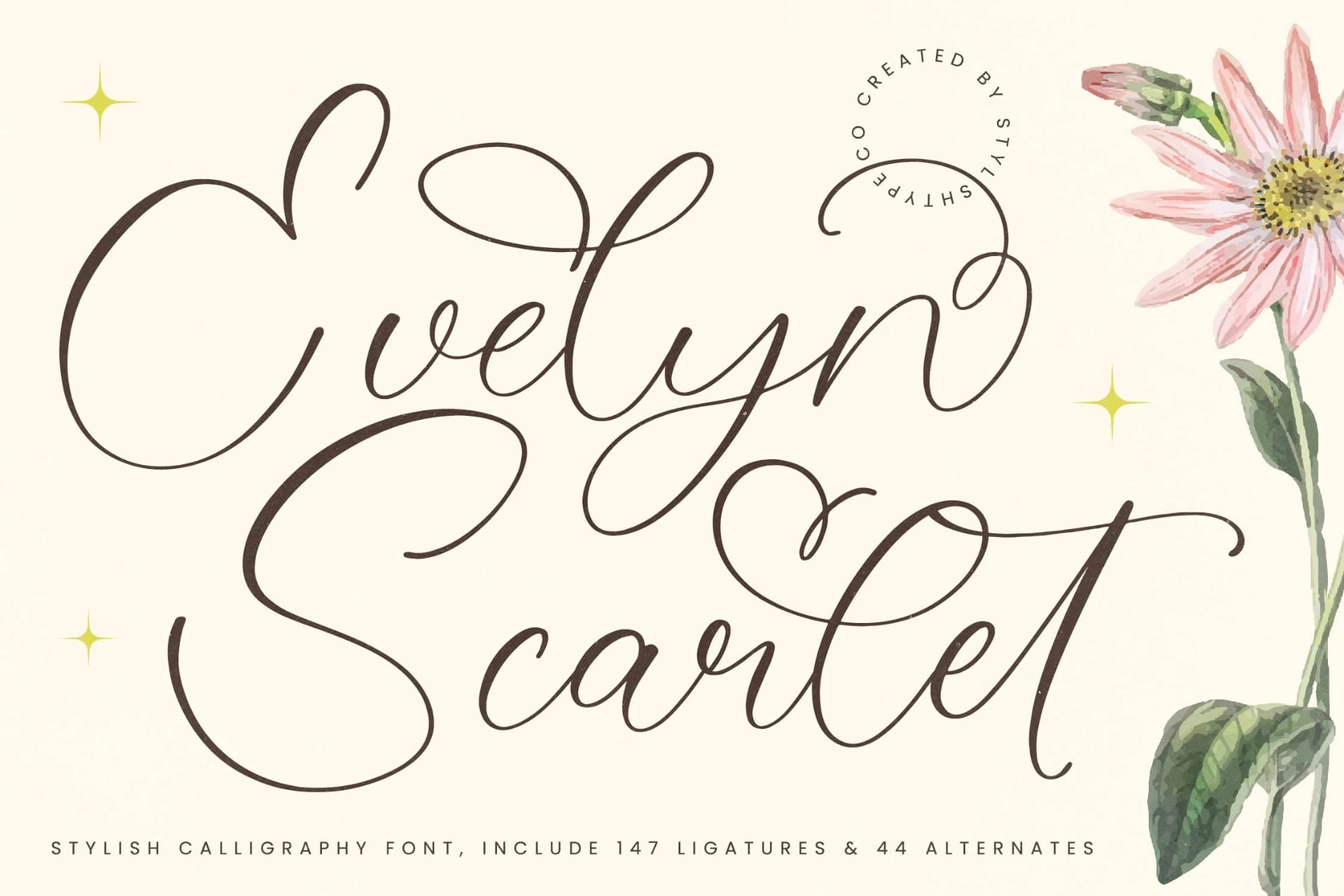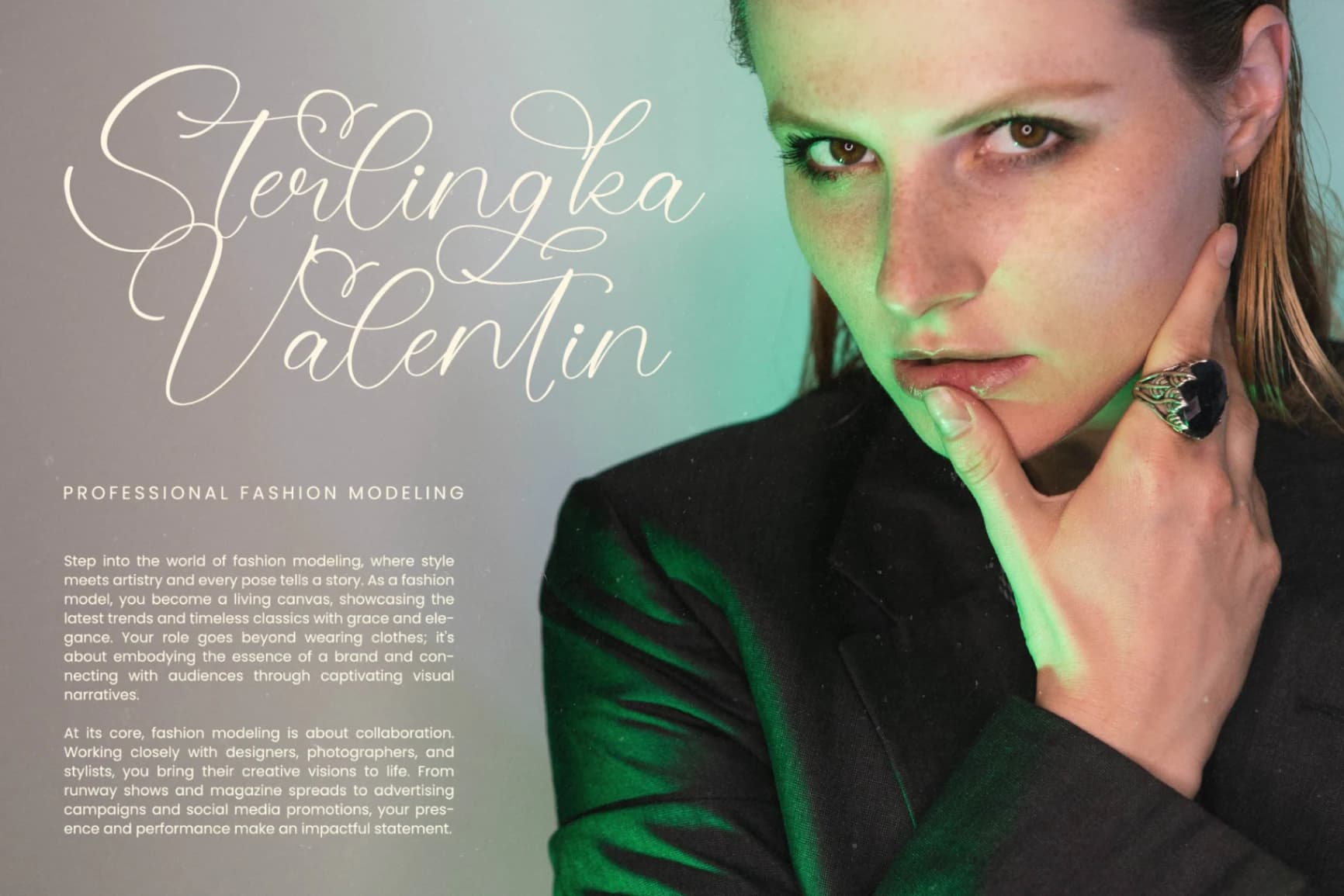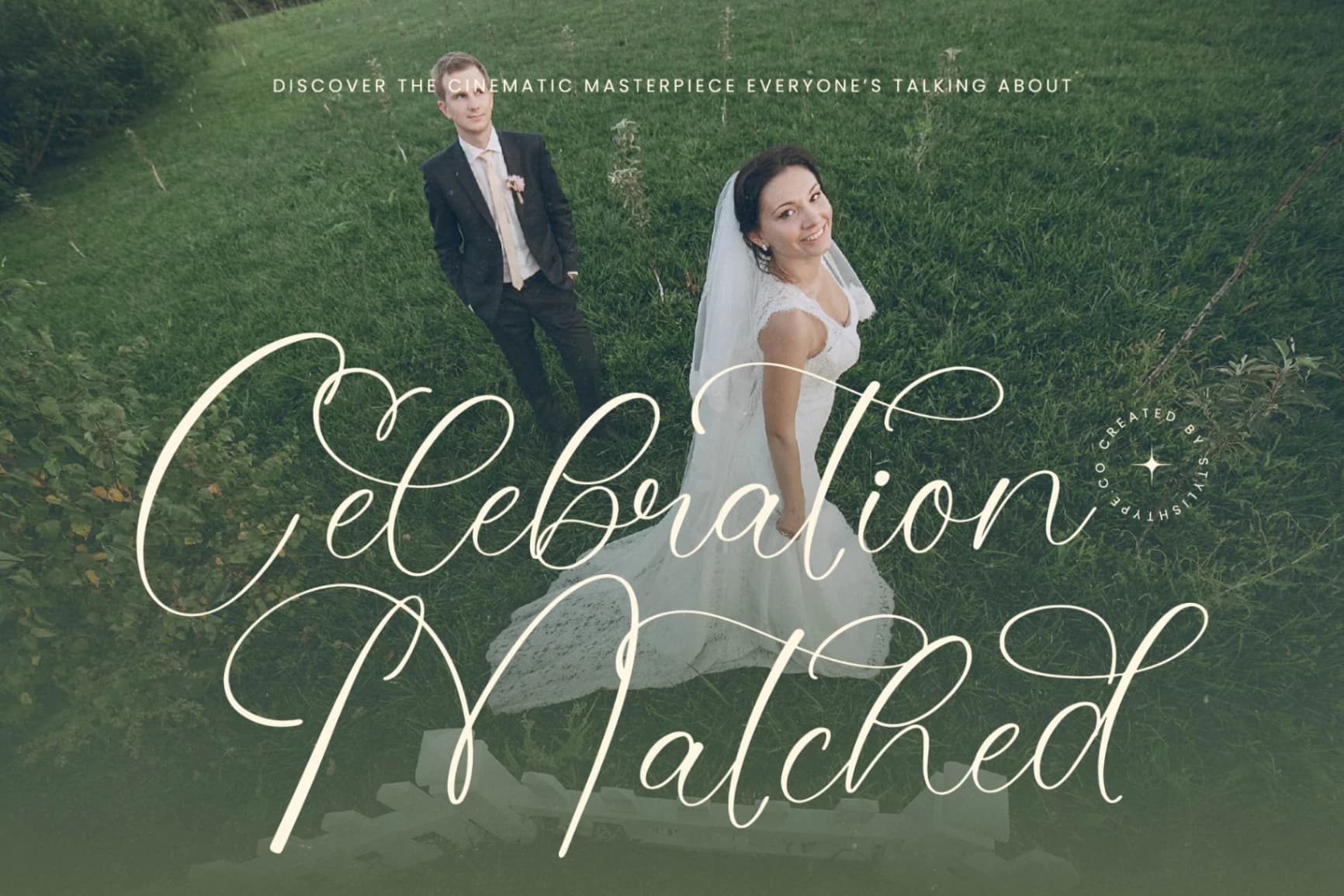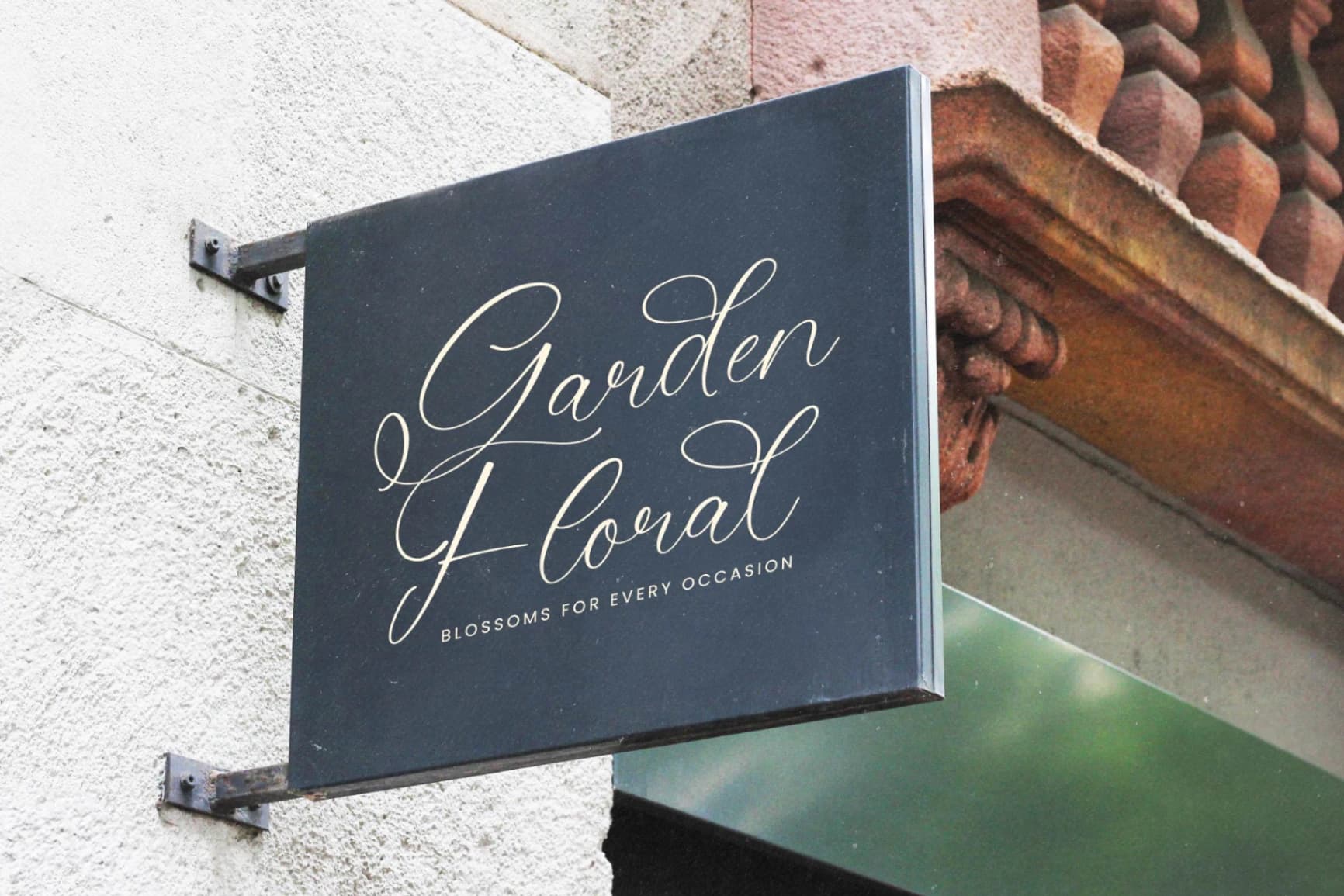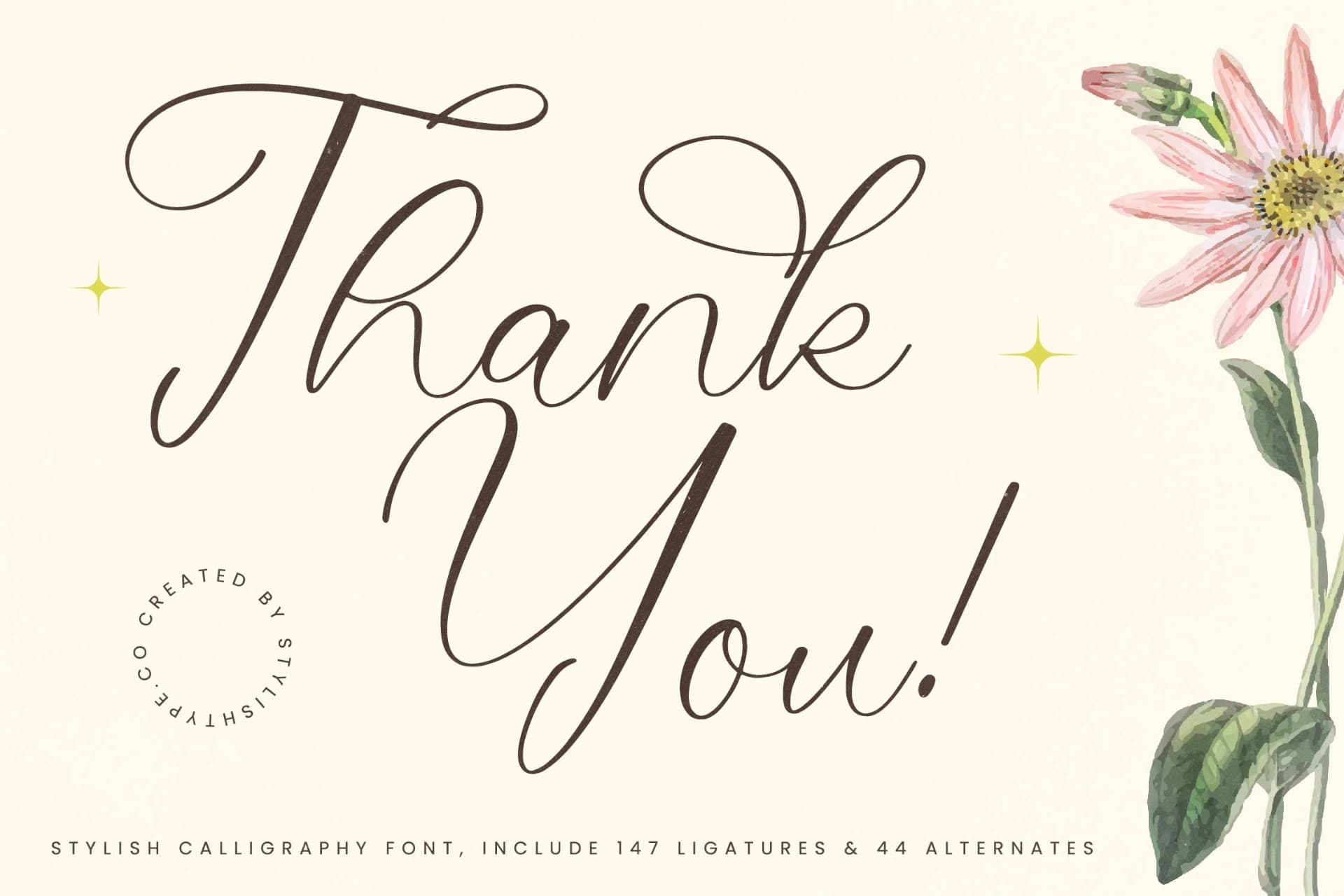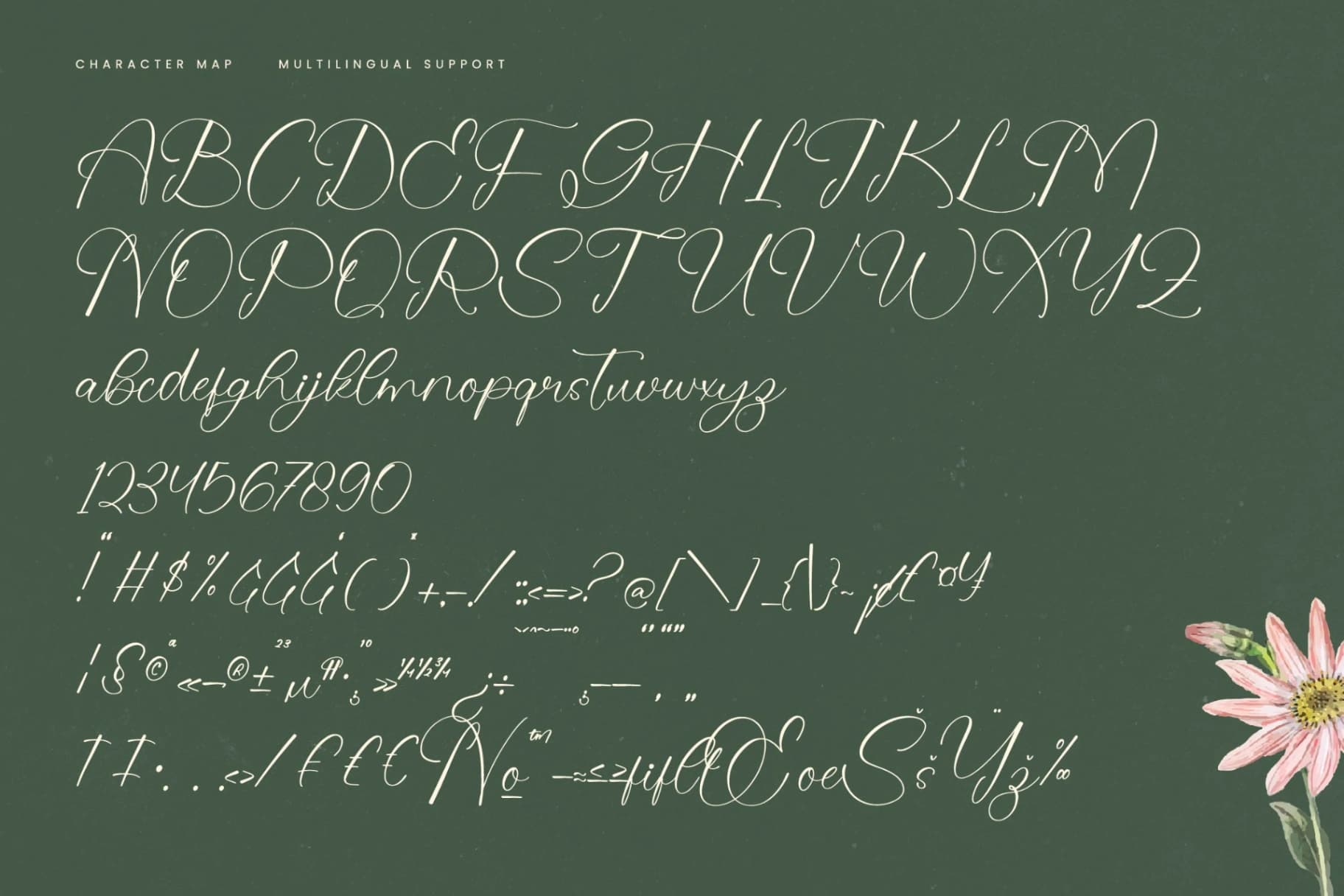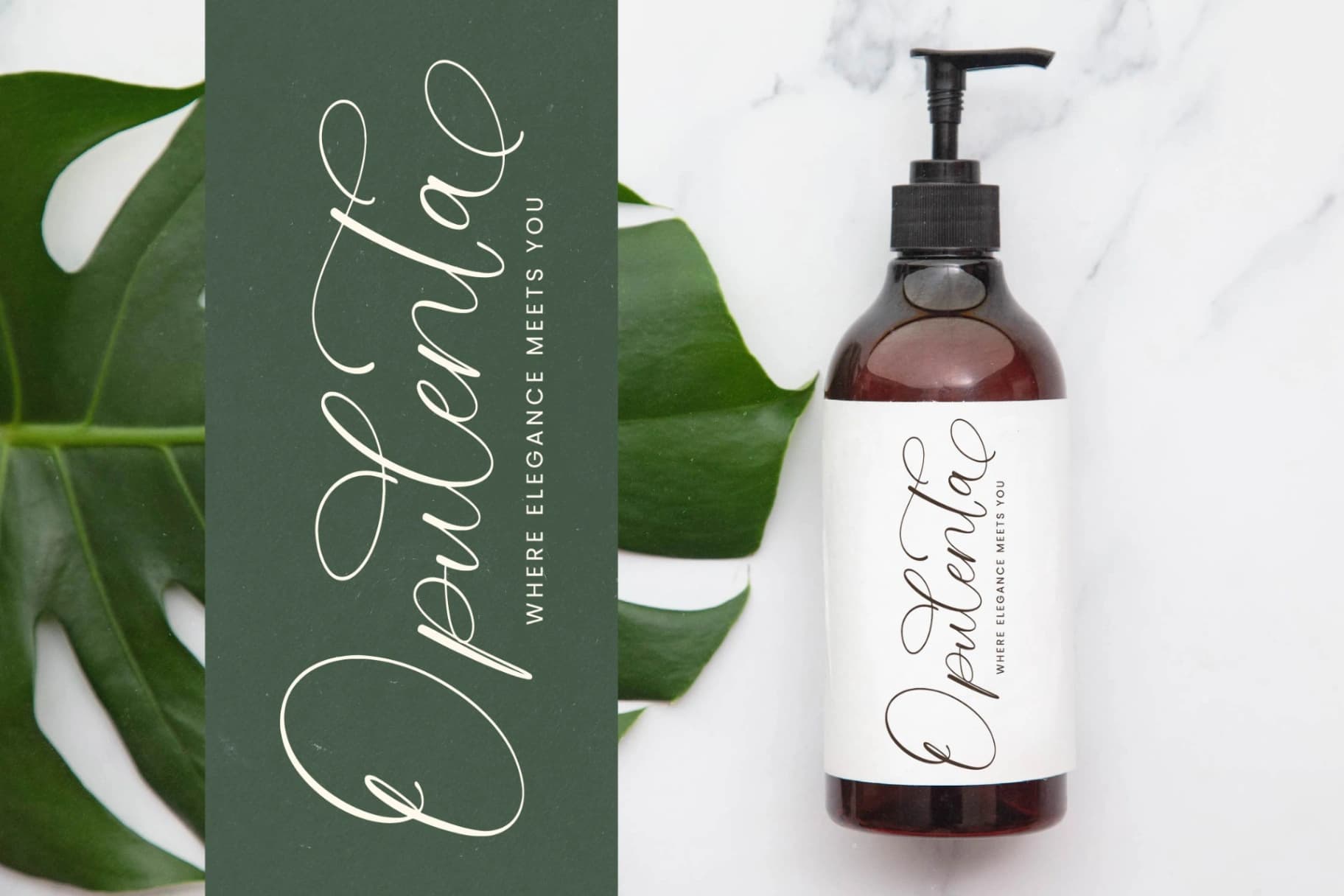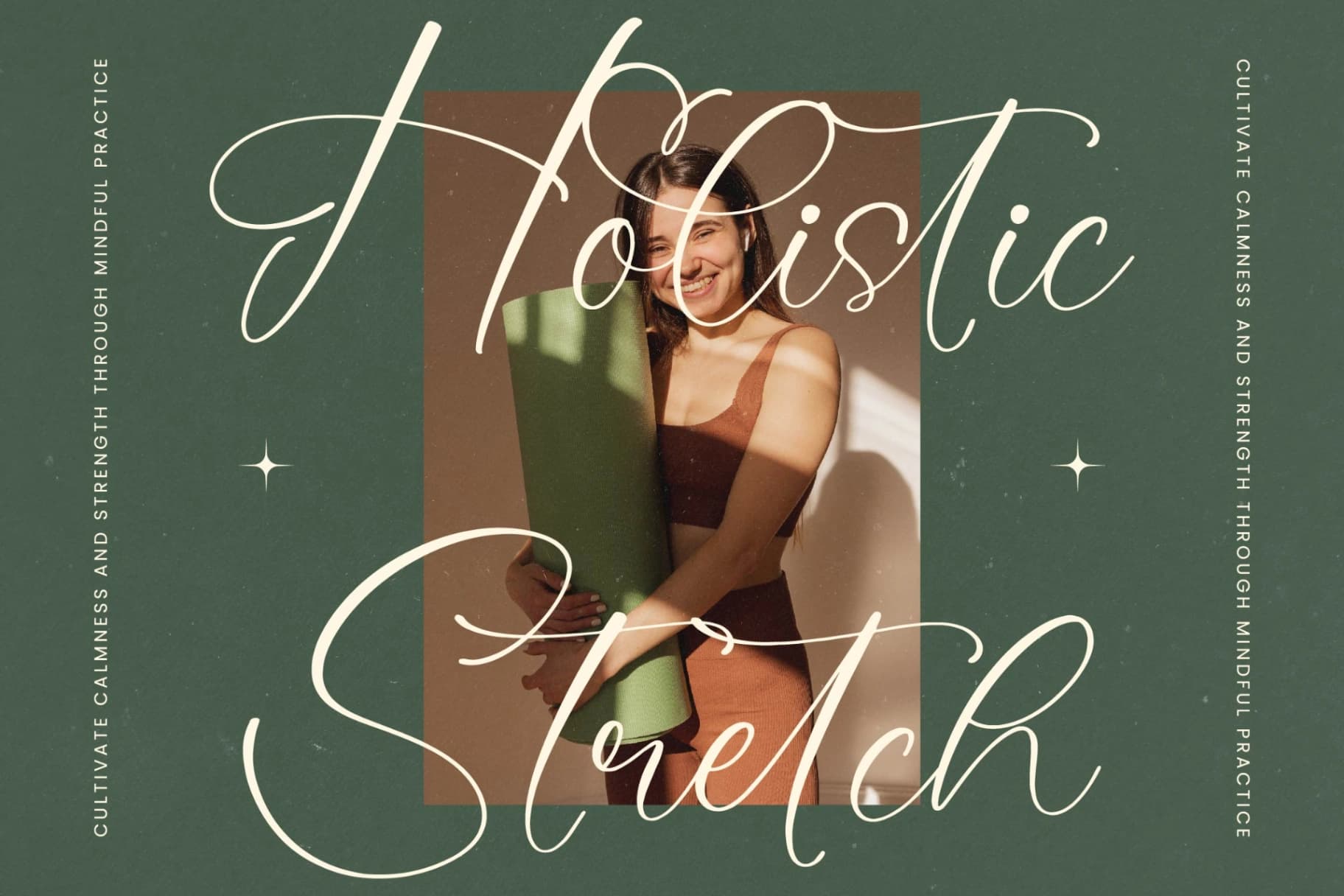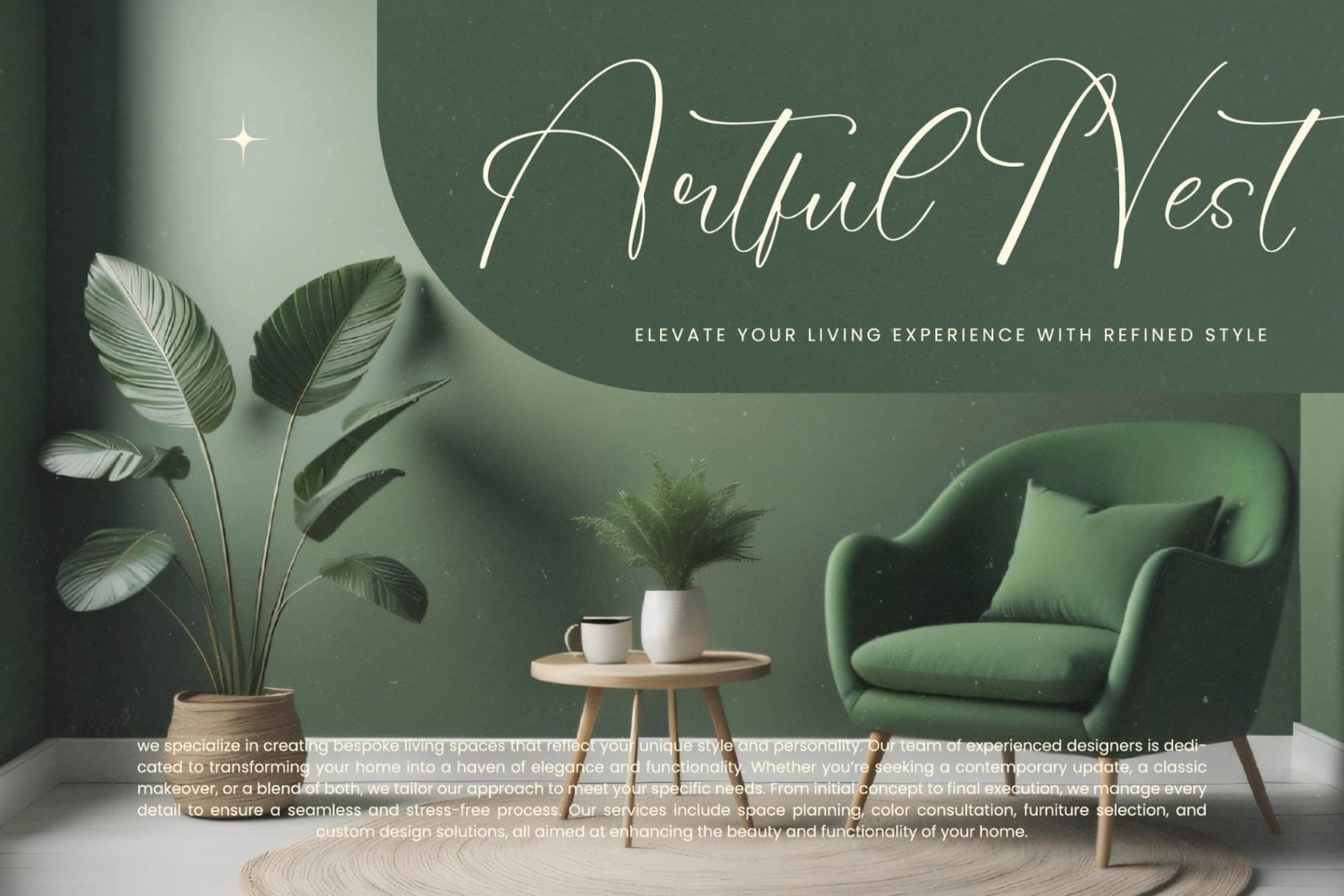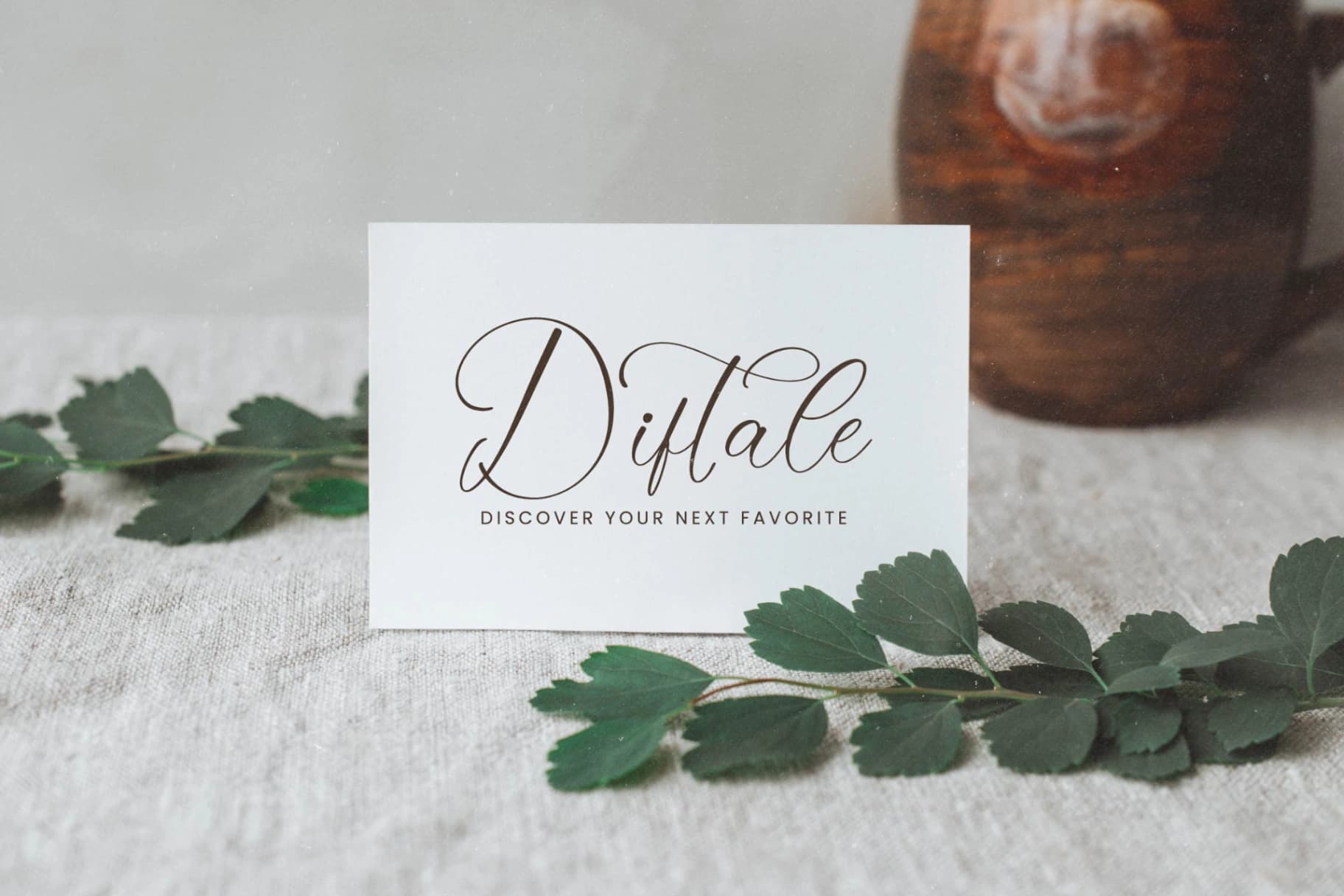
Evelyn Scarlet - Stylish Calligraphy Font
Evelyn Scarlet is a stylish calligraphy font that brings together timeless elegance and the charm of modern handwritten artistry. Designed with 147 ligatures and 44 alternates, this font provides exceptional creative flexibility, allowing designers to build unique and expressive lettering compositions that feel both personal and professional. Each stroke flows with organic beauty and refined detail, giving your typography a signature look that radiates sophistication.
The delicate swashes and flowing curves of Evelyn Scarlet make it an excellent choice for projects that demand romance, refinement, and artistry. Ideal for wedding invitations, luxury branding, romantic stationery, editorial spreads, and exclusive product packaging, this calligraphy typeface adapts effortlessly across both digital platforms and print media. Its handwritten character ensures that every design feels warm, elegant, and memorable.
The true strength of Evelyn Scarlet lies in its ability to communicate emotion through typography. Its strokes feel graceful and intimate, while the ligatures and alternates allow you to tailor the tone — from soft and delicate to bold and striking. This makes it suitable for industries such as fashion, weddings, beauty, lifestyle, and luxury advertising, where visual storytelling and emotional connection are essential.
More than just a decorative script, Evelyn Scarlet is a storytelling tool. It adds a human touch that elevates your designs, transforming simple words into captivating visuals. Whether you are designing a romantic logo, luxury event posters, editorial layouts, or advertising campaigns, this font ensures your projects carry a signature identity that feels both timeless and sophisticated.
If you are searching for a calligraphy font that blends classic handwritten beauty, modern versatility, and luxury refinement, Evelyn Scarlet is the perfect choice. It turns ordinary text into visual masterpieces, ensuring that your creative projects leave a lasting impression filled with style, grace, and artistry.